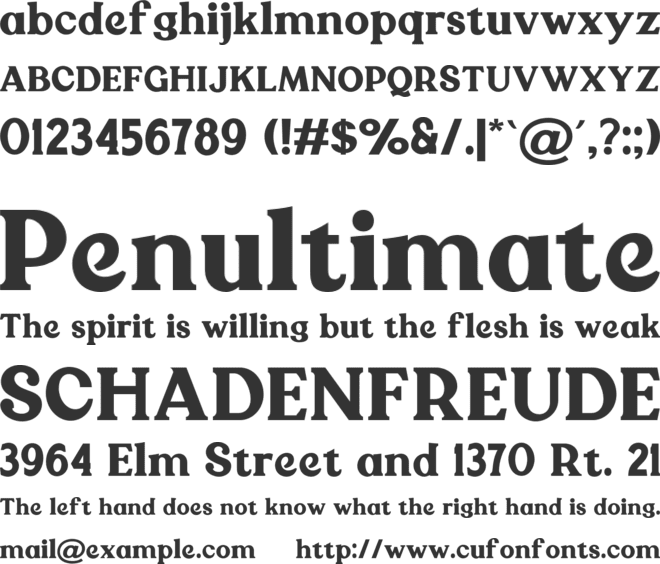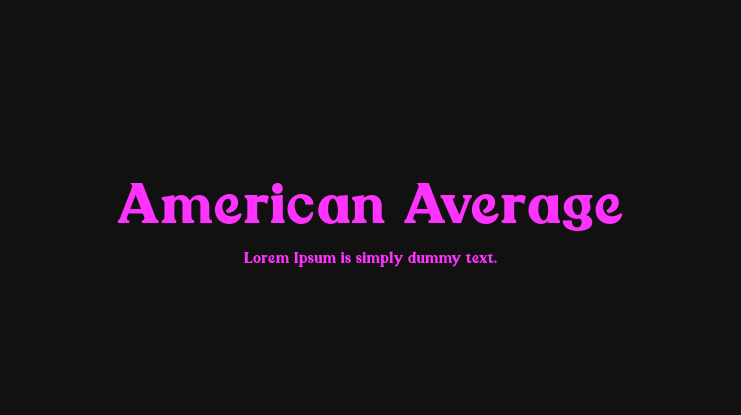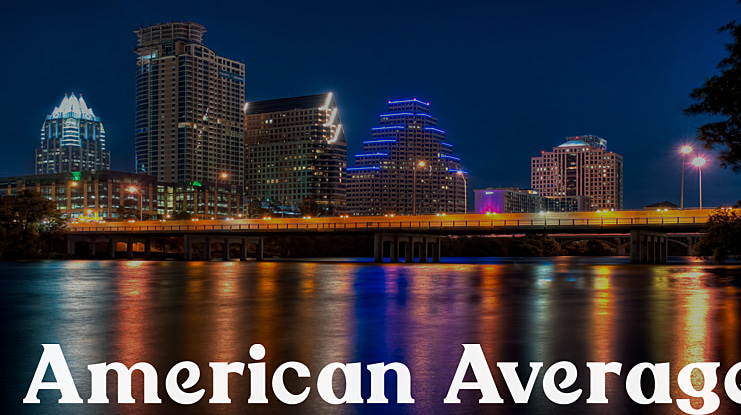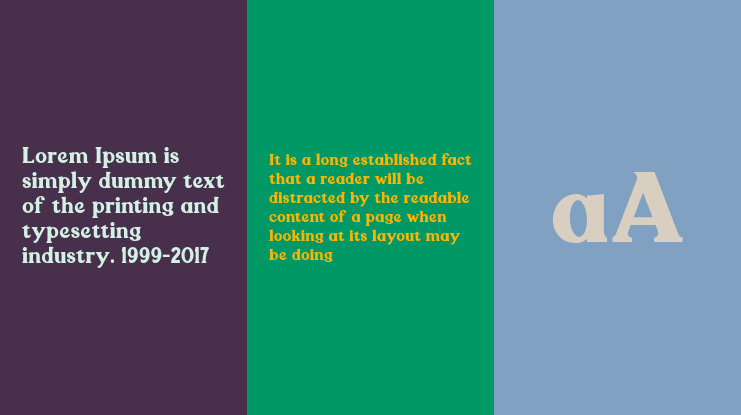
American Average is a slick and modern serif font.
is a stylish font. It has a modern and retro look. Comes with alternatives and binders, helps create stunning logos, quotes, posts, blog posts, branding projects, magazine imagery, wedding invitations, social media, prints, stickers, shirts and much more
There are lots of fun style alternatives available to use with this font. These letters are embedded into the font file and are easily accessible in programs such as photoshop and illustrator.